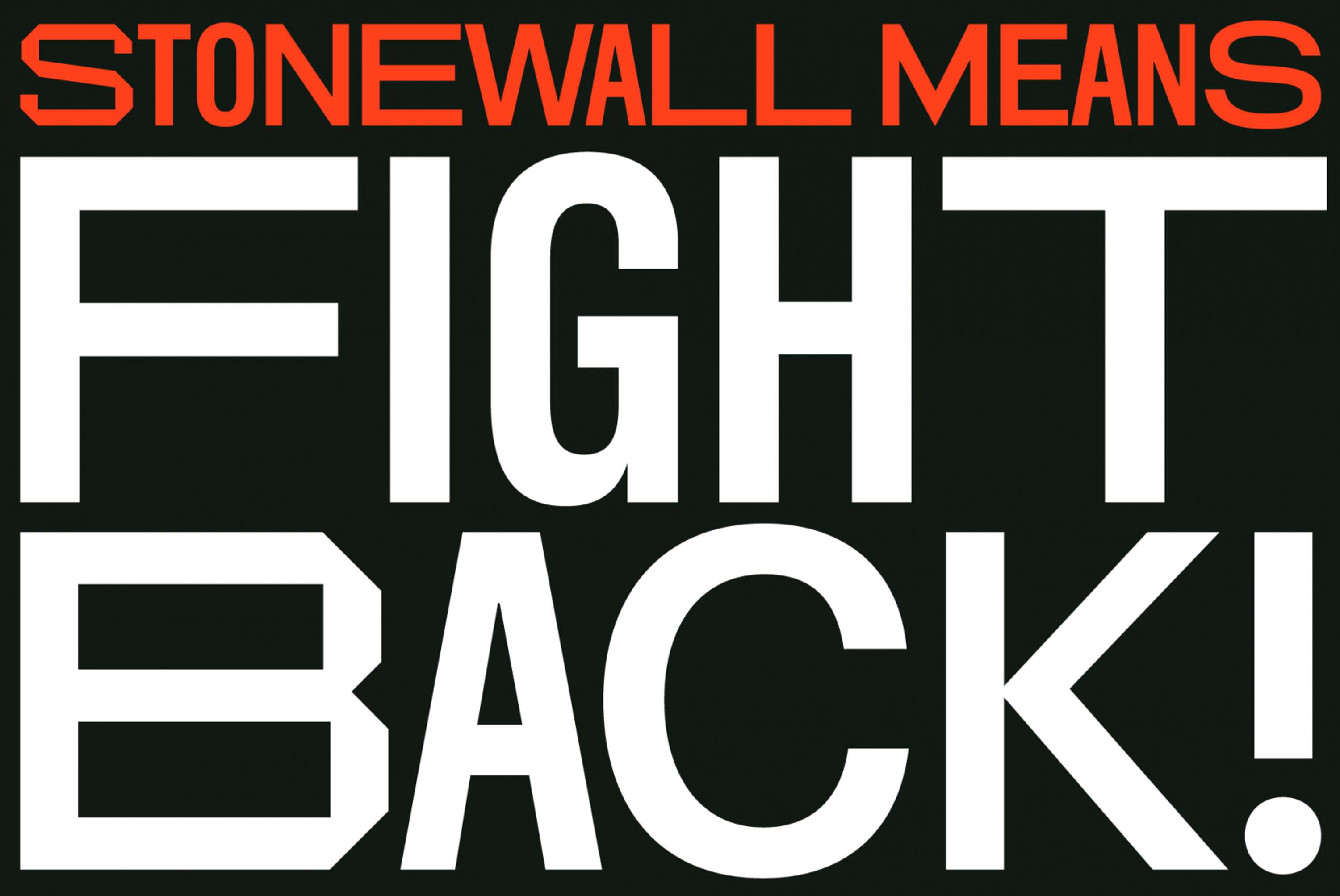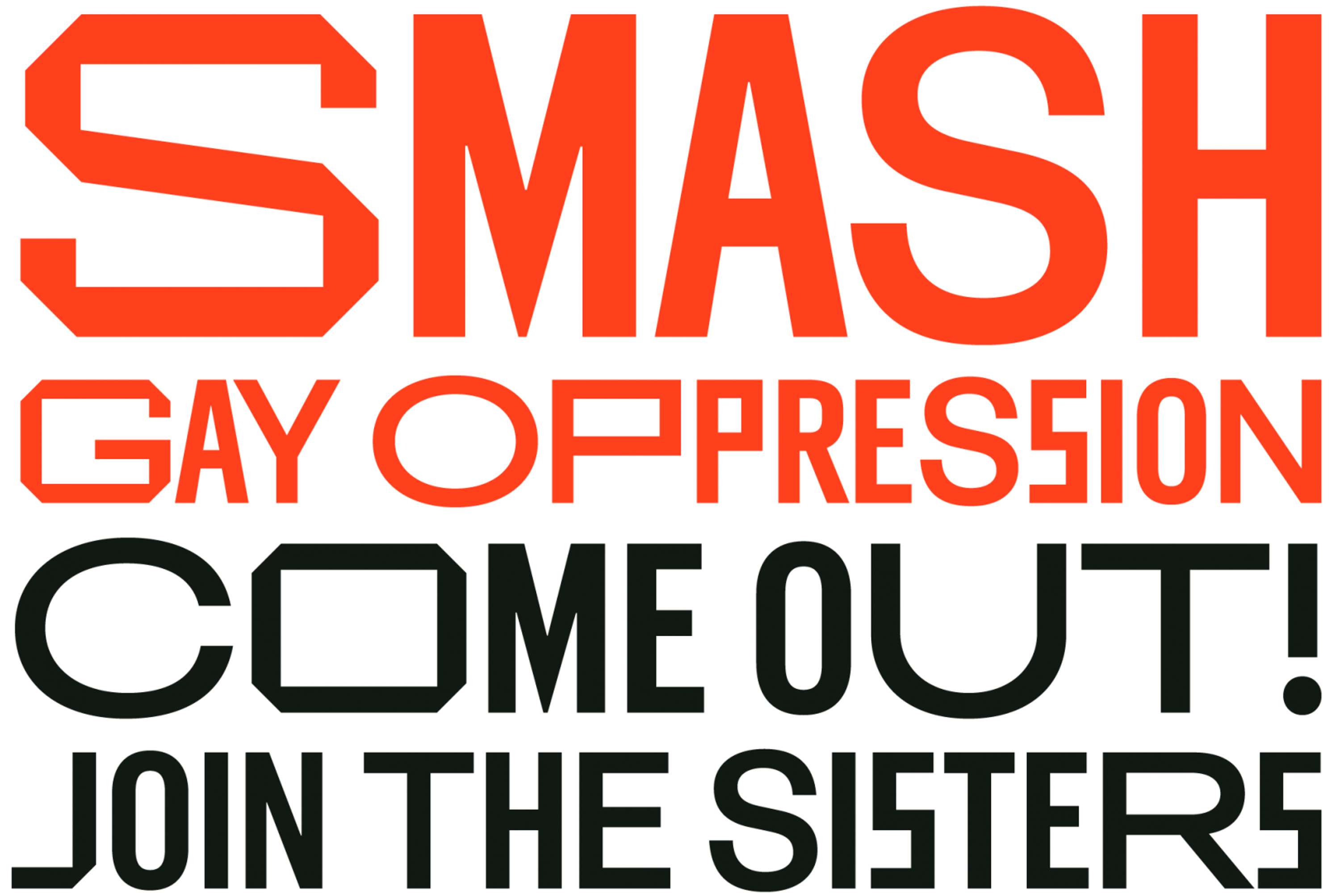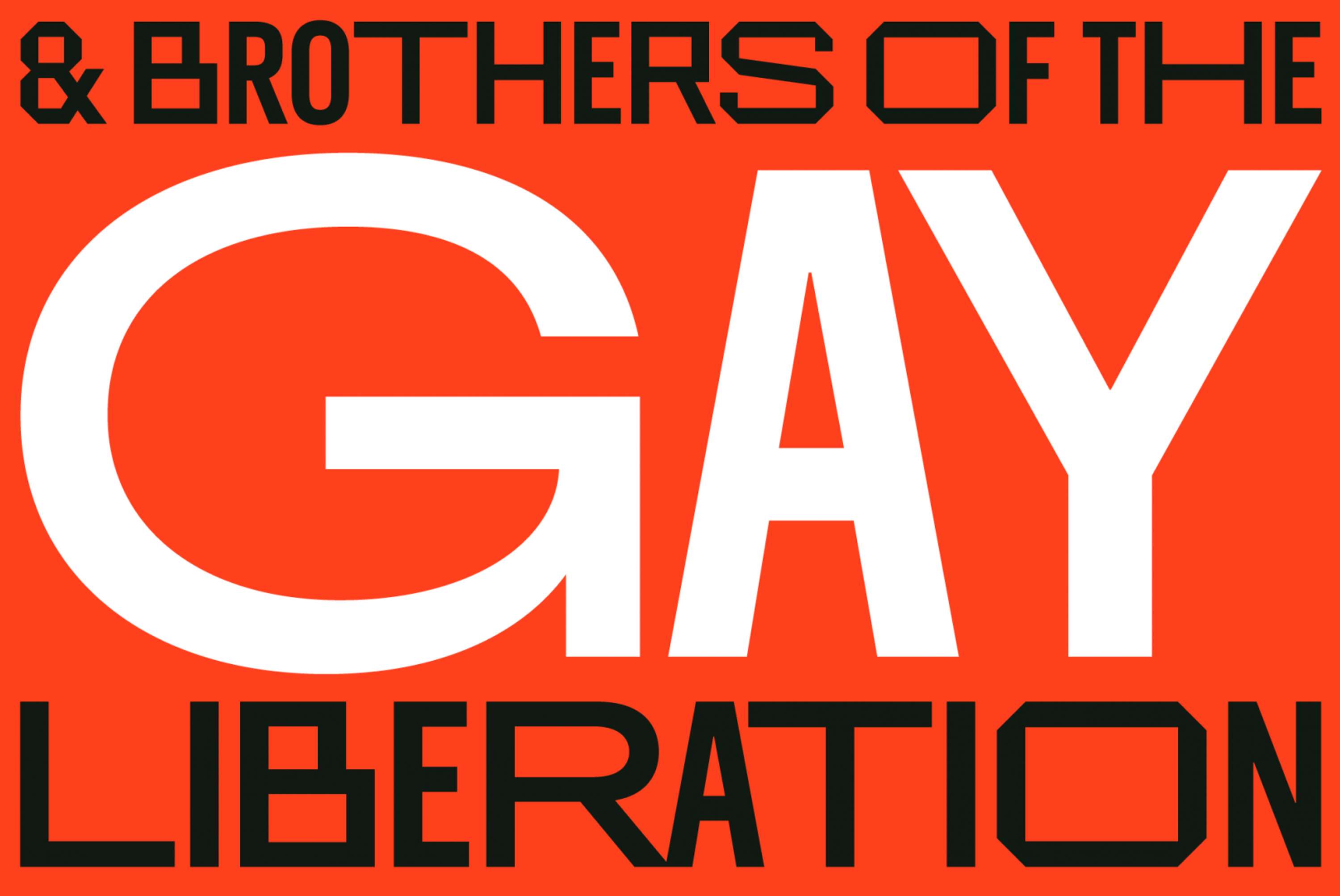
Stonewall 50 Typeface
Feeld’s in-house creative team collaborated with typeface designer Bobby Tannam in devising and creating Stonewall 50. Read more about the inspiration behind the font on our blog. Stonewall 50’s mission is to serve as a tribute to those that have fought for LGBTQI+ equality and freedom, and to encourage action where inequality and oppression still exist. Carrying a rich historical legacy rendered in a contemporary aesthetic, Stonewall 50 aims to make an impactful contribution to LGBTQI+ visual culture. Read more at feeld.co/labs/stonewall-50-typeface
Stonewall 50 Typeface by Feeld